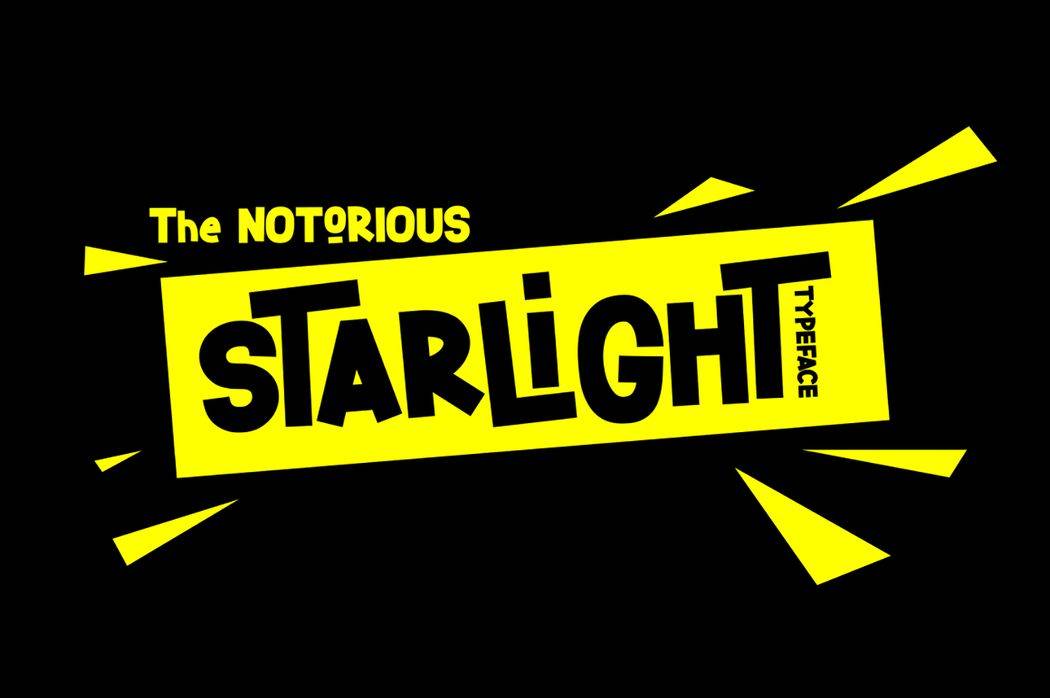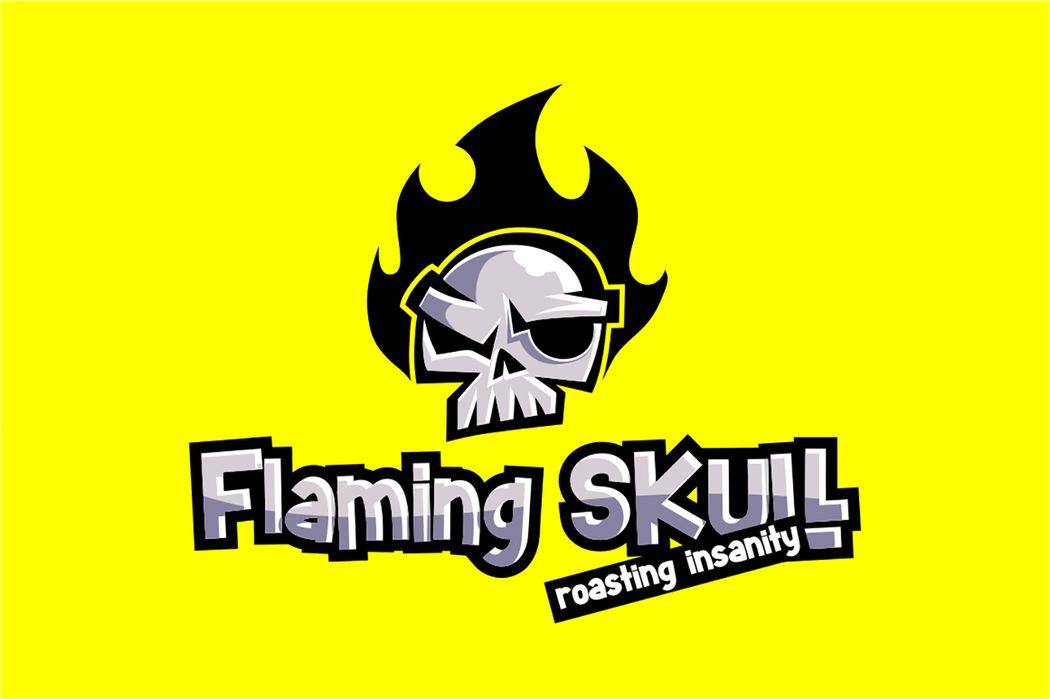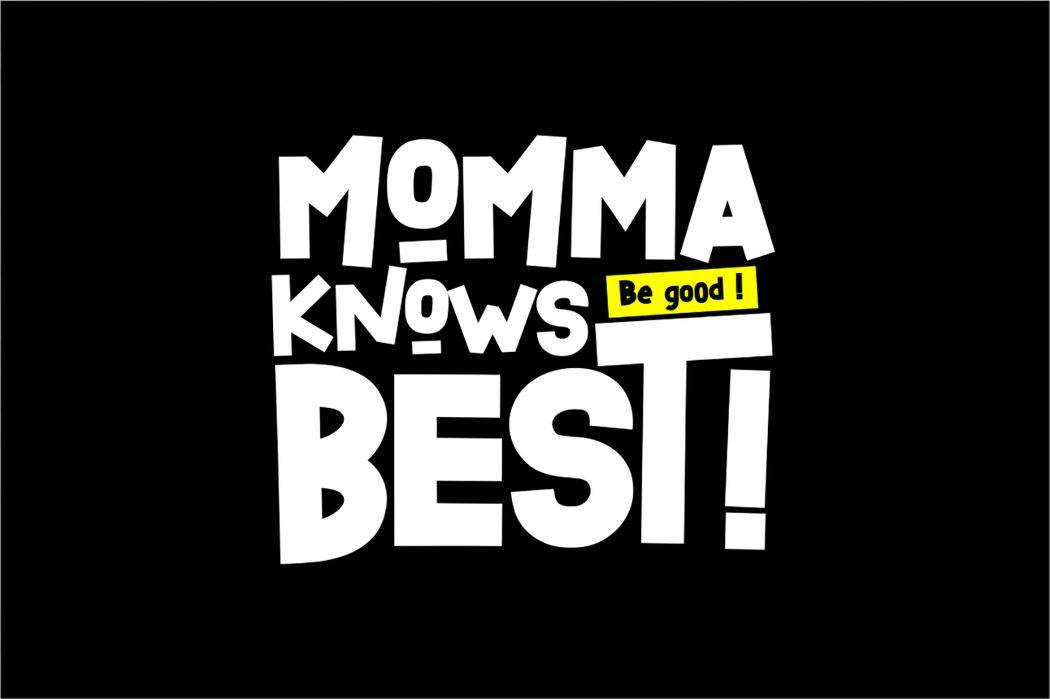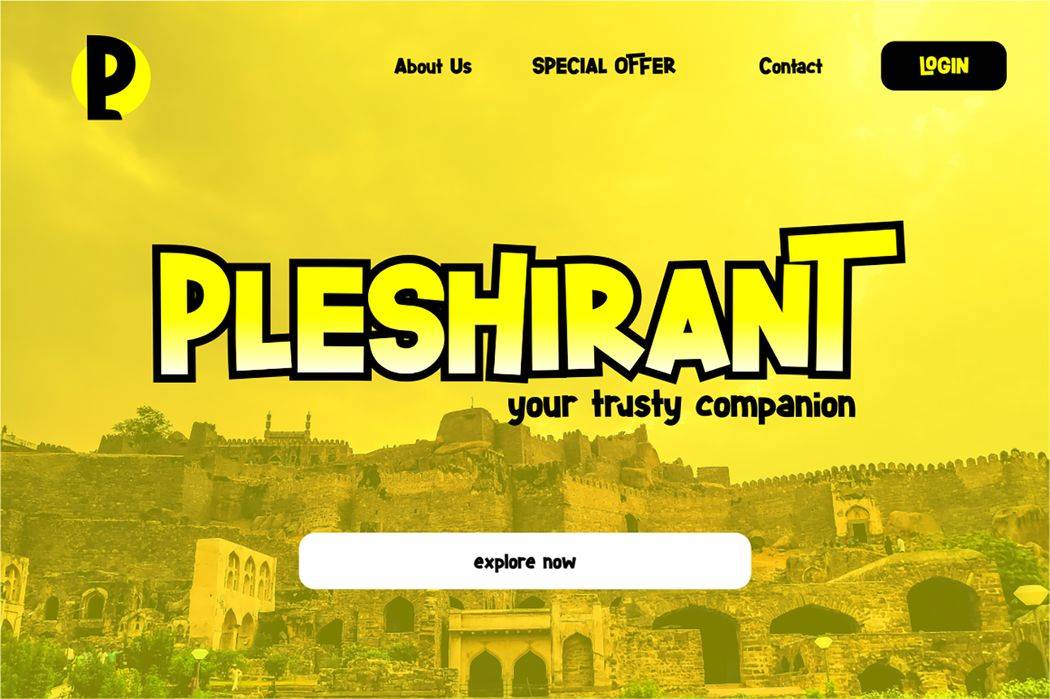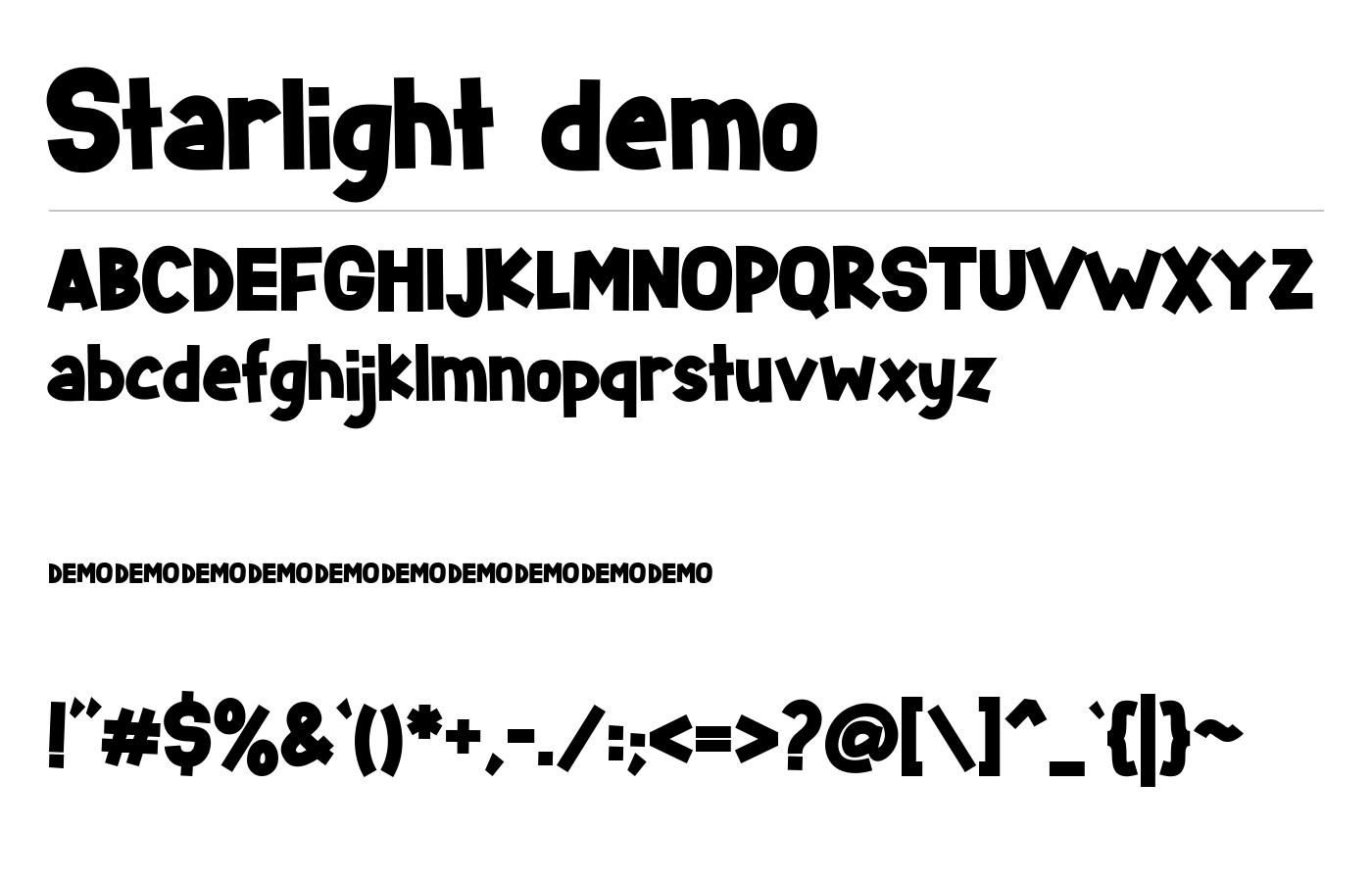
Starlight is a bold, playful sans serif font with a slightly irregular, hand-drawn feel that adds personality and charm. Its chunky, wide letterforms and uneven strokes make it perfect for fun and casual designs, such as children’s books, posters, and creative branding where a lively and approachable tone is desired. This font stands out in headlines and display uses, where its energetic style can capture attention and communicate joy.
Starlight Font
About Starlight Font